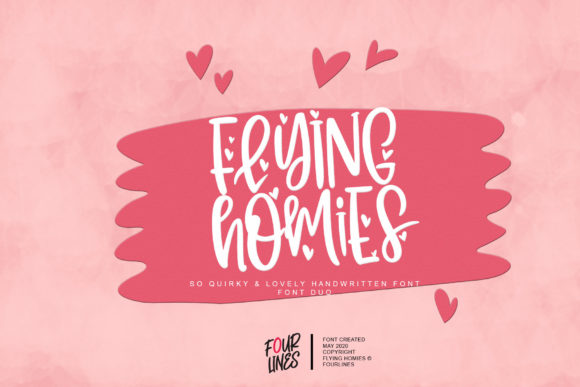
In a realm of digital artistry, where fonts reign supreme, meet Flying Homies - a whimsical creation that will captivate your senses and redefine your design endeavors. This enchanting script font family, brought to life by the creative minds at Fourlines.design, is an ode to the beauty of handwritten elegance.
Immerse yourself in the world of Flying Homies, where your imagination takes flight. This meticulously crafted font duo exudes a charmingly quirky personality, perfect for infusing your designs with a touch of whimsy and heartfelt emotion. Its delicate strokes evoke the authenticity of a handwritten note, adding a personal touch that resonates with your audience.
Picture this: a wedding invitation adorned with Flying Homies' graceful curves, promising an unforgettable celebration. Its romantic allure lends an air of sophistication to your stationery, setting the tone for a day filled with love and joy. Unleash your creativity with Flying Homies, transforming your designs into visual masterpieces that capture the essence of your special moments.
Beyond wedding invitations, Flying Homies shines as a versatile storyteller in the world of social media. Its eye-catching presence will elevate your posts, captivating your followers with its unique charm. Create social media graphics that pop, turning your messages into captivating visual experiences. With Flying Homies, your brand will leave a lasting impression, attracting a loyal audience eager for your next creative offering.
And for those seeking a touch of heartfelt warmth in their designs, Flying Homies is your perfect companion. Design greeting cards that convey your sincere emotions, expressing gratitude, love, and friendship in a way that resonates with the recipient's heart. Its playful nature adds a touch of lightheartedness, making your cards a joy to receive and cherish.
With Flying Homies, you hold the key to unlocking a world of creative possibilities. Whether you're a seasoned designer or just starting your journey, this font family will empower you to create designs that soar above the ordinary. Embrace the magic of Flying Homies and watch your creativity take flight.